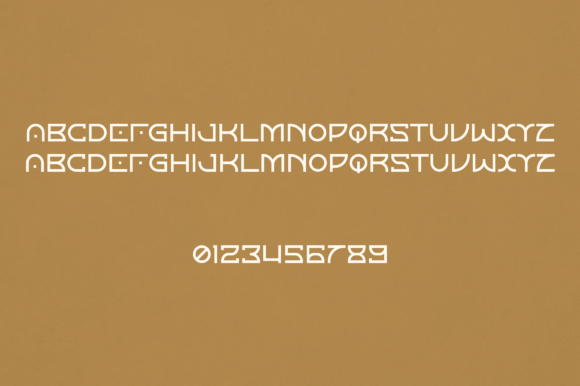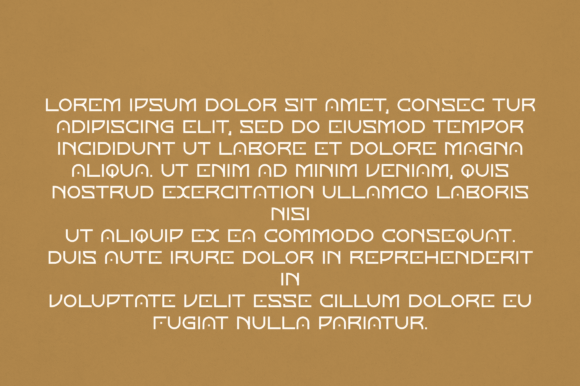
Eileen Font: Elevate Your Design with Elegance and Versatility
Are you tired of using the same old fonts for your design projects? Look no further than Eileen Font, a stunning display font that is sure to make your typography truly unique. With its elegant and versatile design, Eileen Font is perfect for a wide range of applications, from branding and logo design to product packaging and magazine headers.
Eileen Font is a game-changer for designers and crafters who want to add a touch of sophistication and style to their work. This beautiful font is designed to enchant every logo, branding, headline, or plain text, making it the perfect choice for anyone looking to elevate their design. Whether you’re working on a branding project, creating home-ware designs, or designing product packaging, Eileen Font is sure to impress.
Key Features of Eileen Font
- Elegant and Versatile Design: Eileen Font features a unique and sophisticated design that is perfect for a wide range of applications.
- Perfect for Branding Projects: Use Eileen Font to create stunning logos, branding materials, and marketing collateral that will set your business apart.
- Great for Home-Ware Designs: Add a touch of elegance to your home-ware designs, including product packaging, labels, and more.
- Ideal for Magazine Headers: Use Eileen Font to create eye-catching magazine headers that will grab the attention of your readers.
- Stylish Text Overlay: Use Eileen Font as a stylish text overlay to add a touch of sophistication to any background image.
Why Choose Eileen Font?
So why choose Eileen Font over other fonts on the market? Here are just a few reasons why Eileen Font stands out:
- Unique and Memorable: Eileen Font is a truly unique font that will help your design stand out from the crowd.
- Elegant and Sophisticated: Eileen Font features an elegant and sophisticated design that is perfect for high-end branding and design projects.
- Versatile: Eileen Font is a versatile font that can be used in a wide range of applications, from branding and logo design to product packaging and magazine headers.
- Easy to Read: Despite its elegant design, Eileen Font is easy to read, making it perfect for use in body text and other applications where readability is key.
How to Use Eileen Font
- Experiment with Different Sizes and Colors: Eileen Font looks great in a variety of sizes and colors, so don’t be afraid to experiment and find the perfect combination for your design.
- Pair with Other Fonts: Eileen Font pairs well with a variety of other fonts, so try pairing it with a sans-serif font for a bold and modern look.
- Use in Combination with Images: Eileen Font looks great as a text overlay on images, so try using it to add a touch of elegance to your background images.